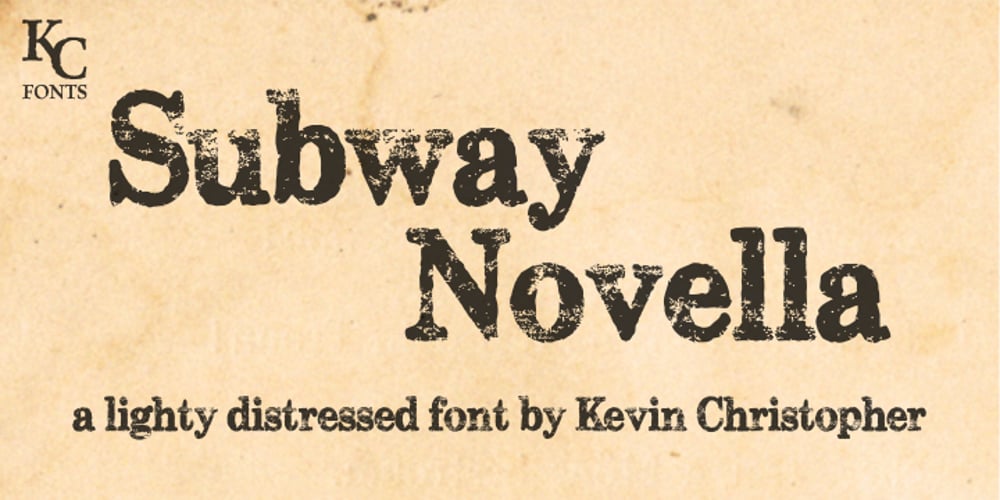
Subway Novella
Subway Novella font
Subway Novella Font Family was designed by Kevin Christopher and published by KC Fonts. Subway Novella contains 2 styles and family package options. Inspired by old books and misprinted type, Subway Novella is perfect for adding that washed and worn look to your designs without going over the top making it look fake or over done. A little distress goes a long way!